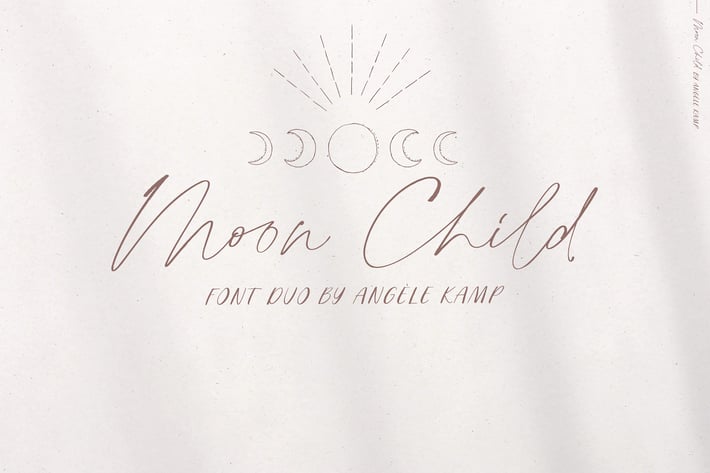
Moon Child font duo
Introducing Moon Child, an elegant font duo that pair perfectly together. The signature script combines lovely with the all-caps sans and will make designing logos, Instagram quotes, websites & invitations effortless.